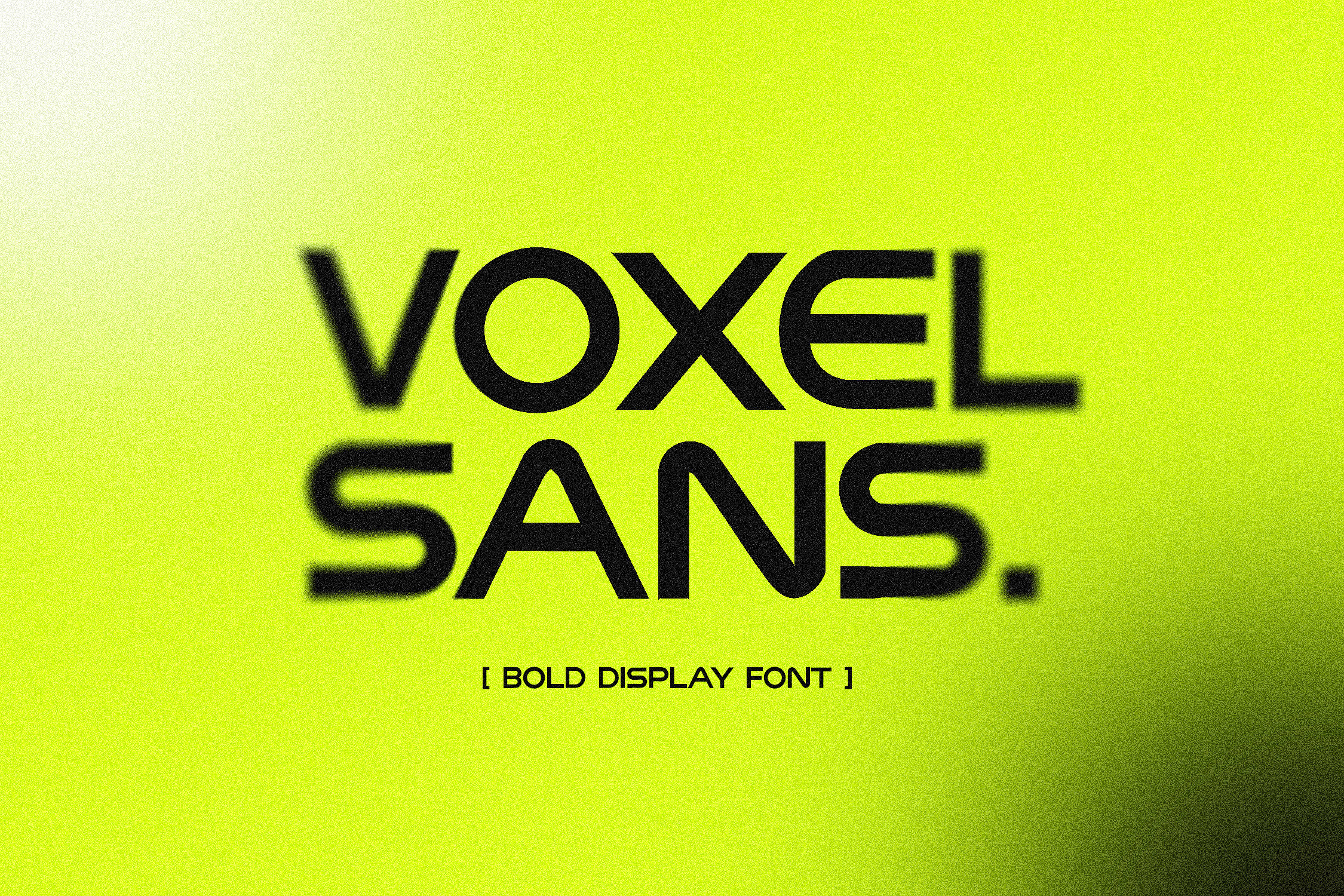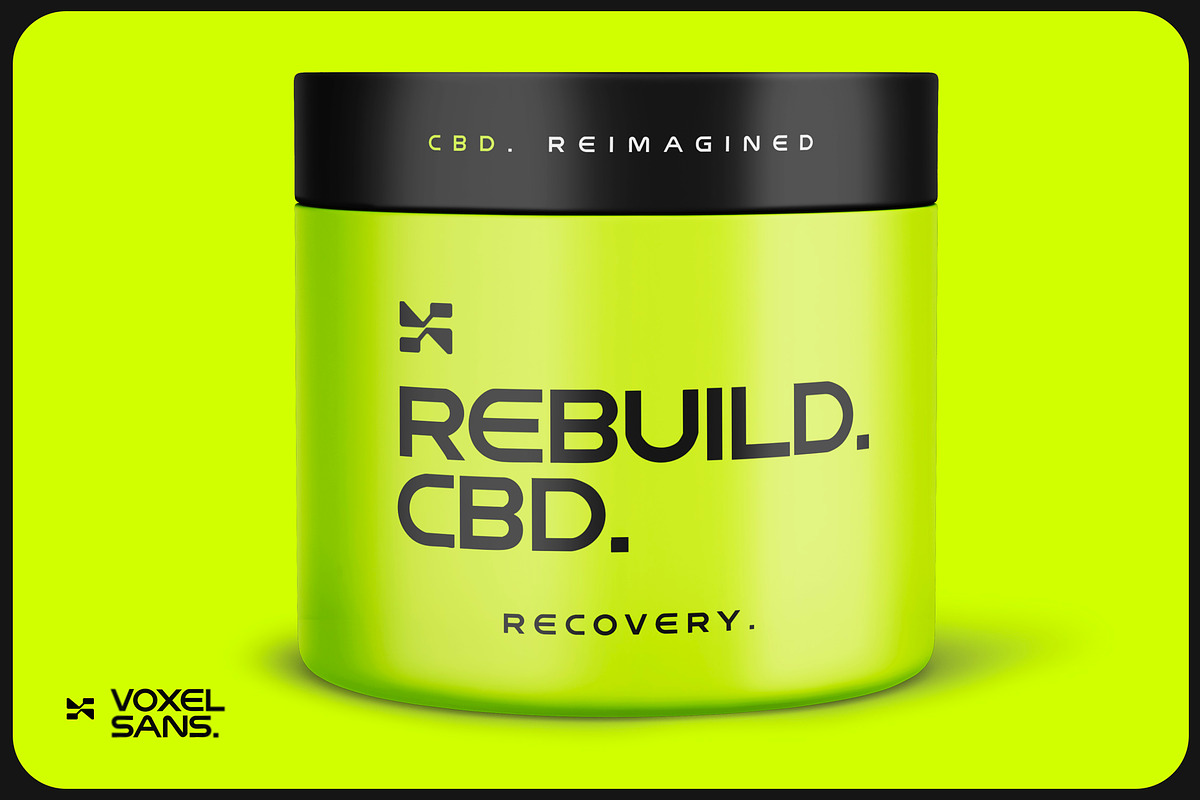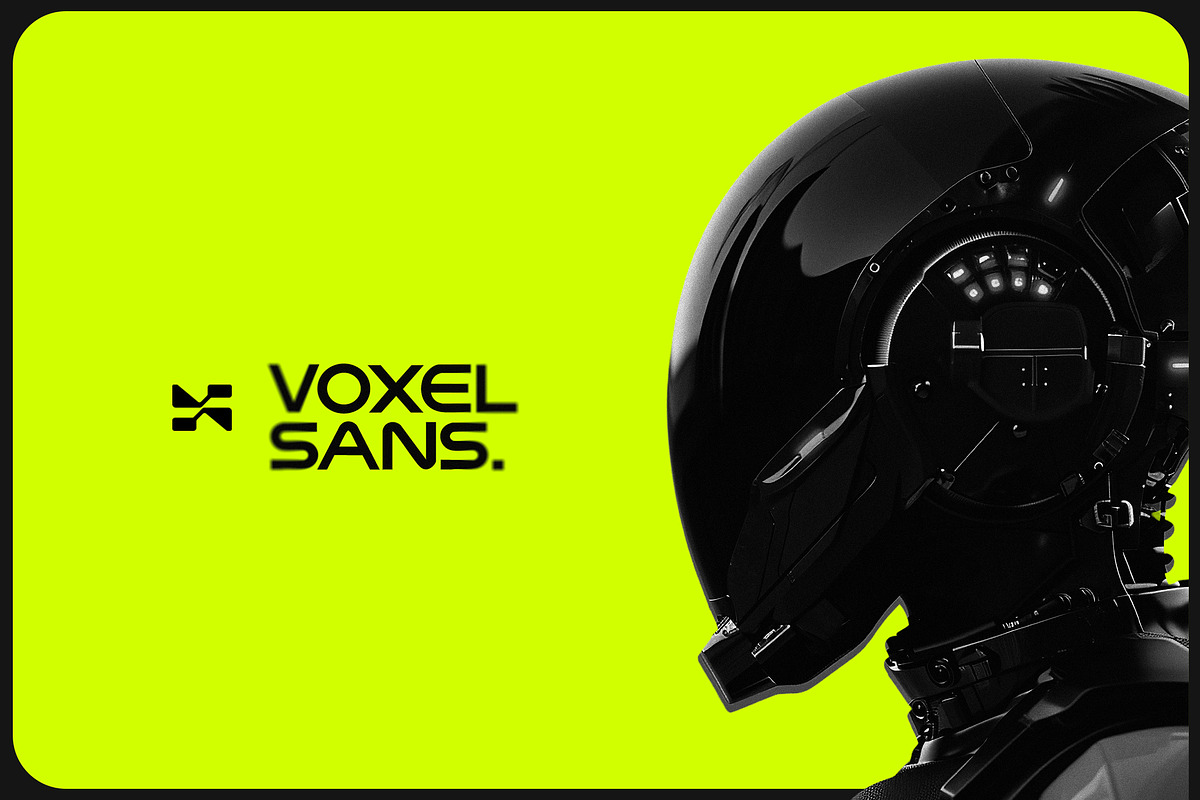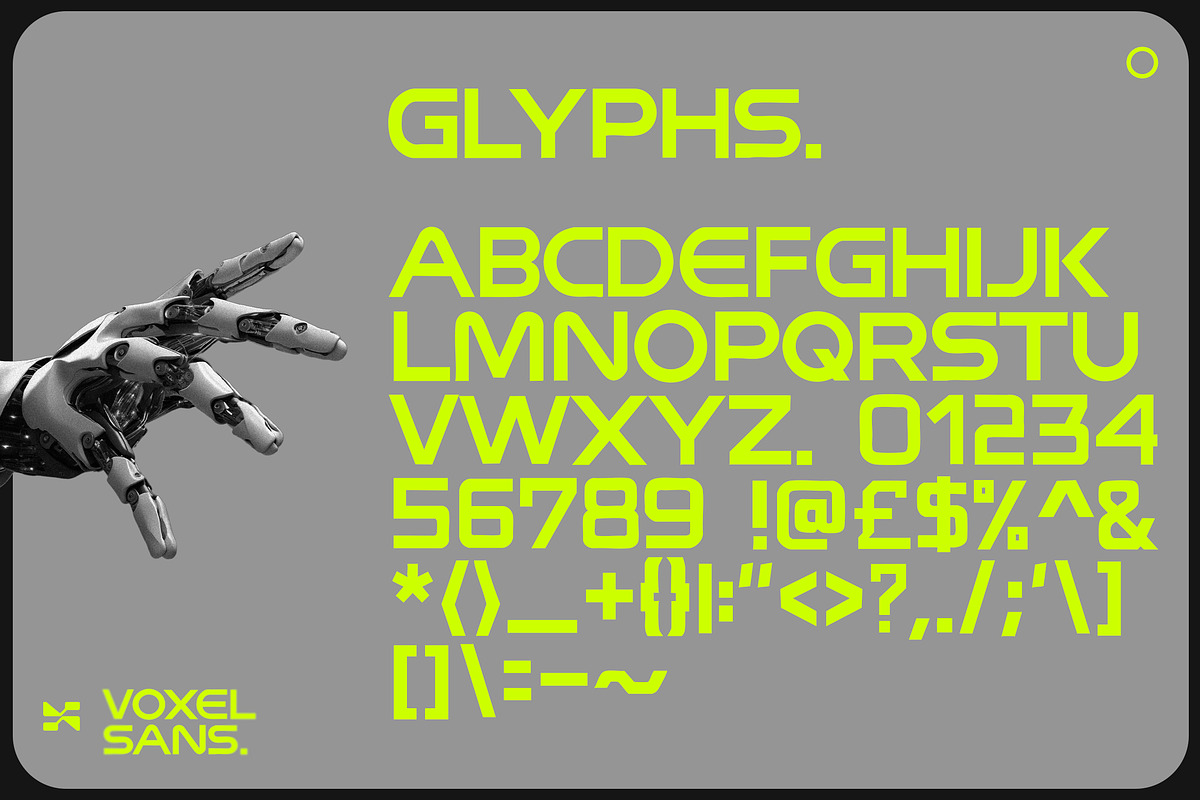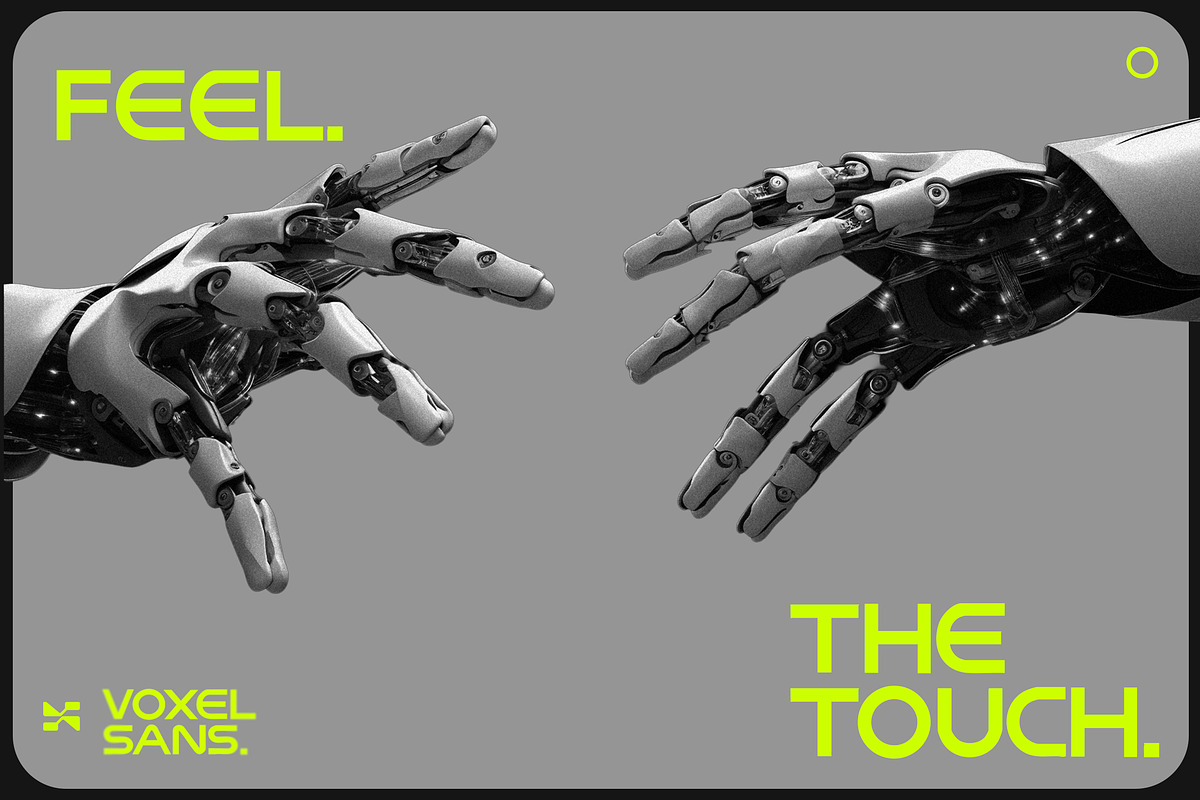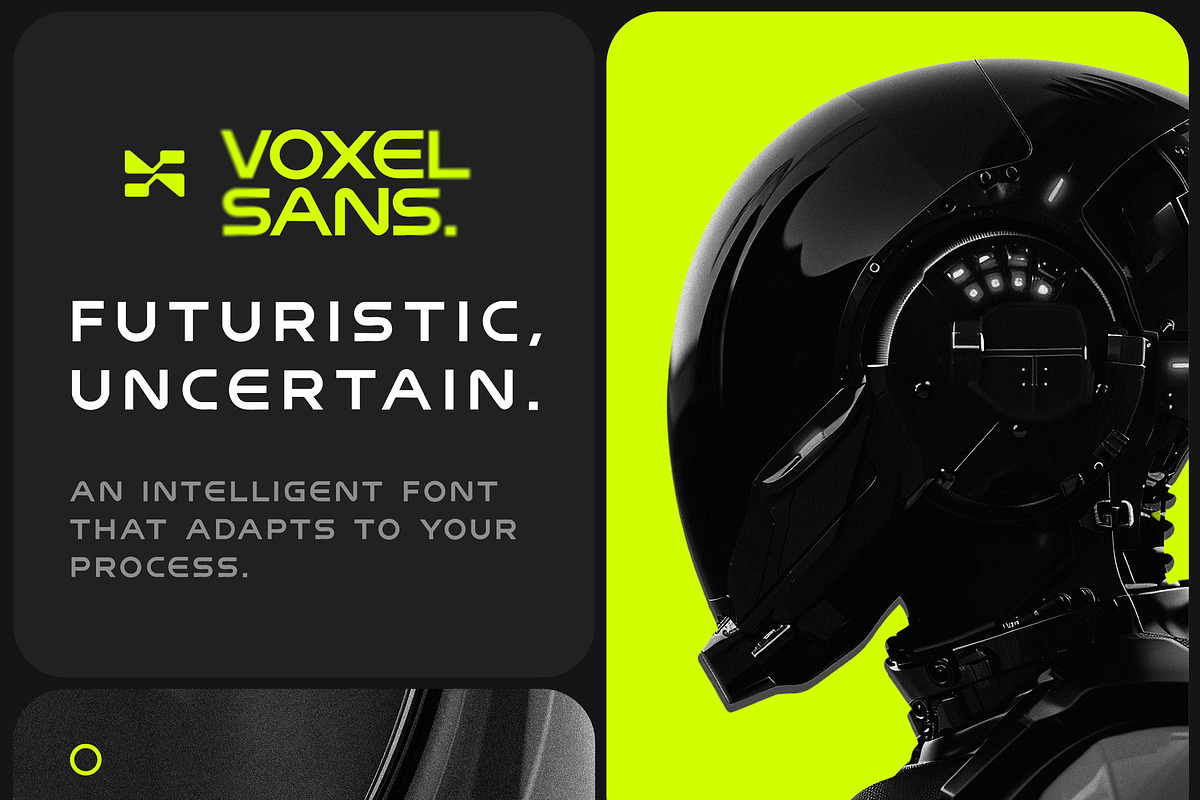
Voxel Sans - Bold Display Font
Introducing Voxel Sans - Bold Display Font
Voxel Sans is a rounded, futuristic choice typeface, perfect for print work and also digital artwork, banners, hero images, social media graphics and much more!